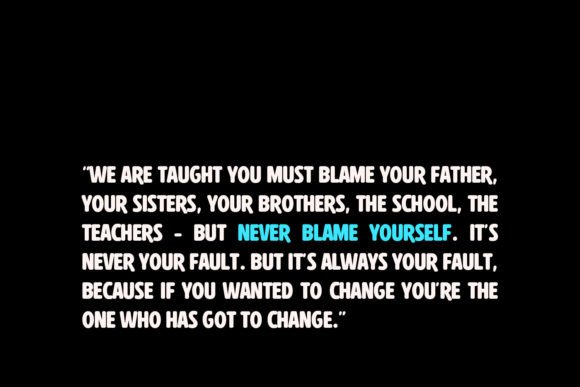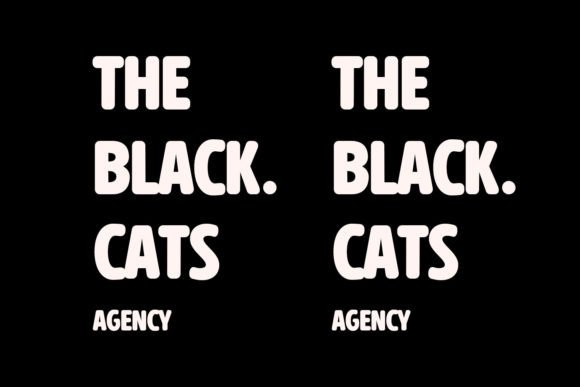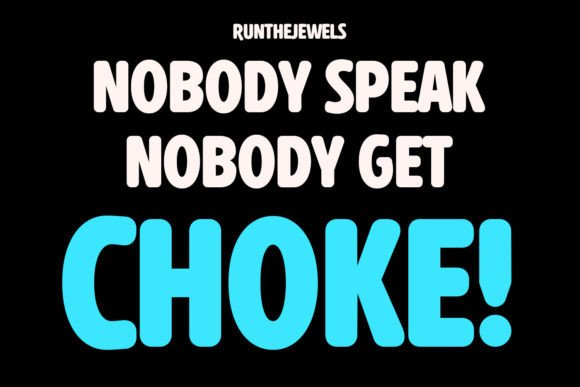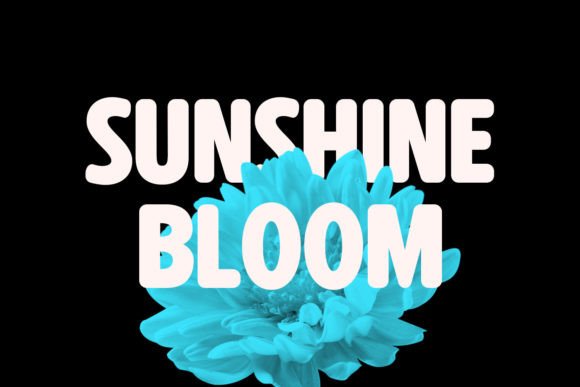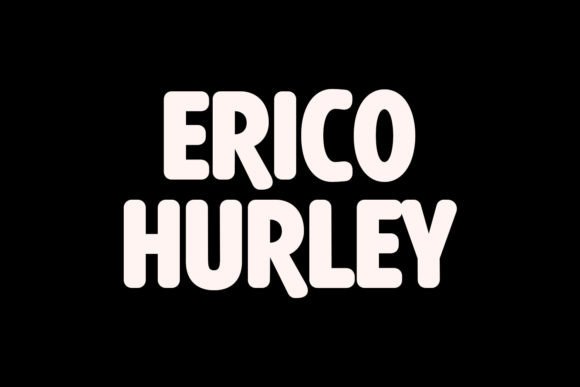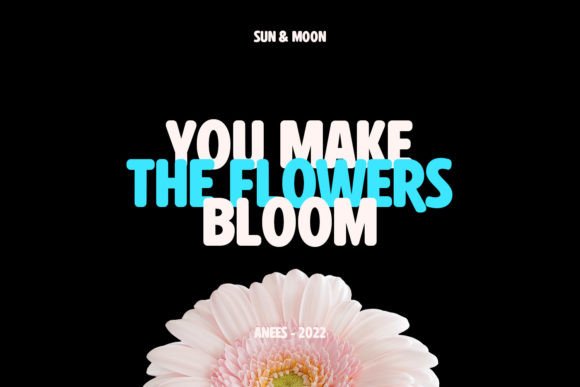
Introduction to Rydero Font
Rydero is a cool and trendy sans display font.
It is defined by smooth curves and is perfect for fashion branding or editorial designs Use this font for your designs and explore its endless possibilities.
Rydero Font offers exceptional quality and versatility, making it a valuable addition to your design toolkit. Whether you’re creating for personal projects or commercial use, Rydero Font delivers professional results.